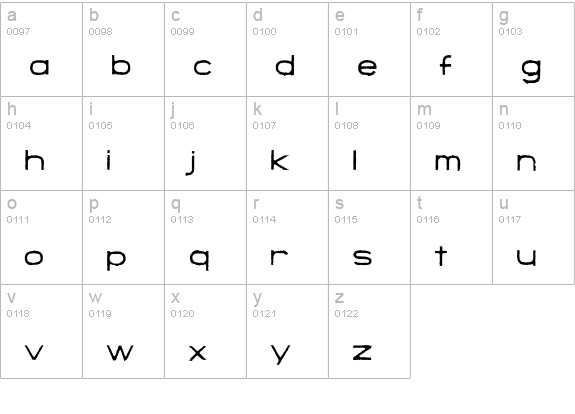
SAVE THE MINI TRIAL Font Details
Introducing the captivating and versatile SAVE THE MINI TRIAL font, a true gem for graphic designers and creative enthusiasts alike. This font effortlessly combines elegance with a touch of playfulness, making it perfect for a wide range of projects. SAVE THE MINI TRIAL font is an absolute must-have for those seeking to add a unique and stylish twist to their designs. With its clean lines and beautifully intricate details, this font will instantly captivate your audience and leave a lasting impression. What makes SAVE THE MINI TRIAL font even more enticing is the fact that it is available for free download exclusively at FontsMarket.com. Yes, you read that right – this stunning font can be yours at absolutely no cost. It's a fantastic opportunity to enhance your design library without breaking the bank. Whether you're working on a logo, branding materials, invitations, posters, or any other creative project, SAVE THE MINI TRIAL font will effortlessly elevate your design to the next level. Its versatility allows it to adapt to various styles and themes, giving you the freedom to express your creativity in limitless ways. Don't miss out on the chance to experience the beauty and versatility of SAVE THE MINI TRIAL font. Head over to FontsMarket.com today and download this incredible font for free. It's time to take your designs to new heights and make a lasting impact with this extraordinary typeface.